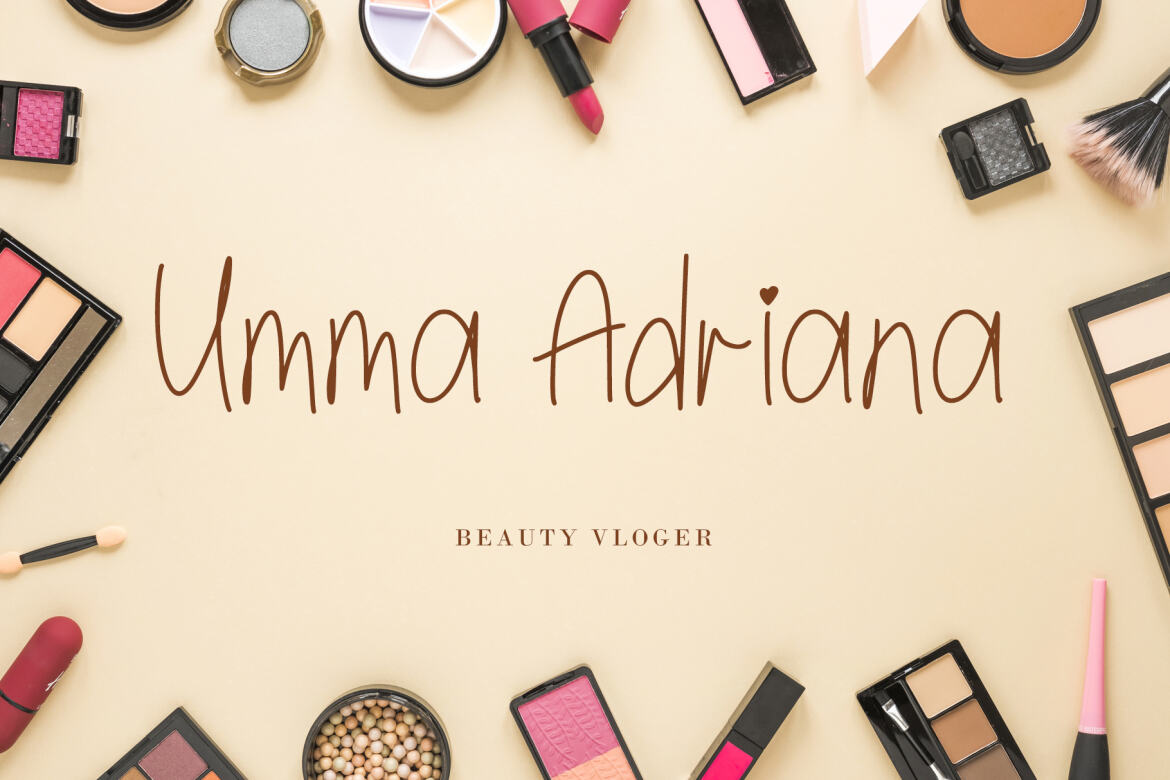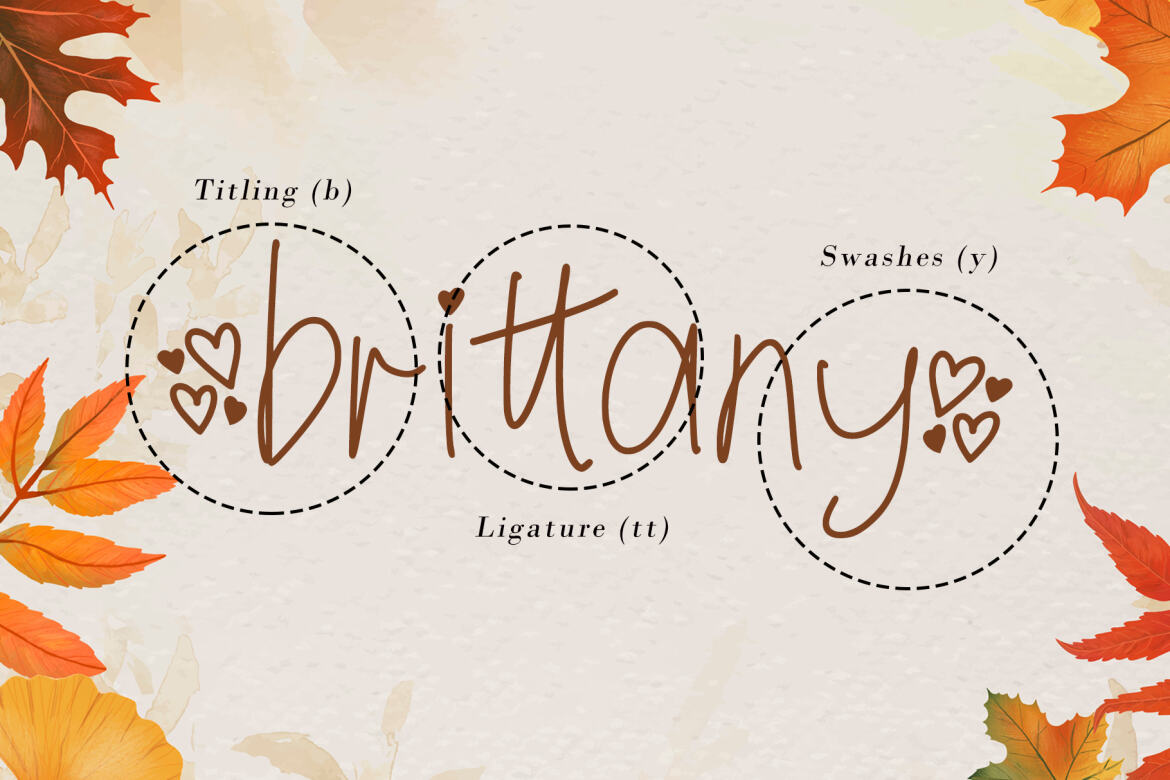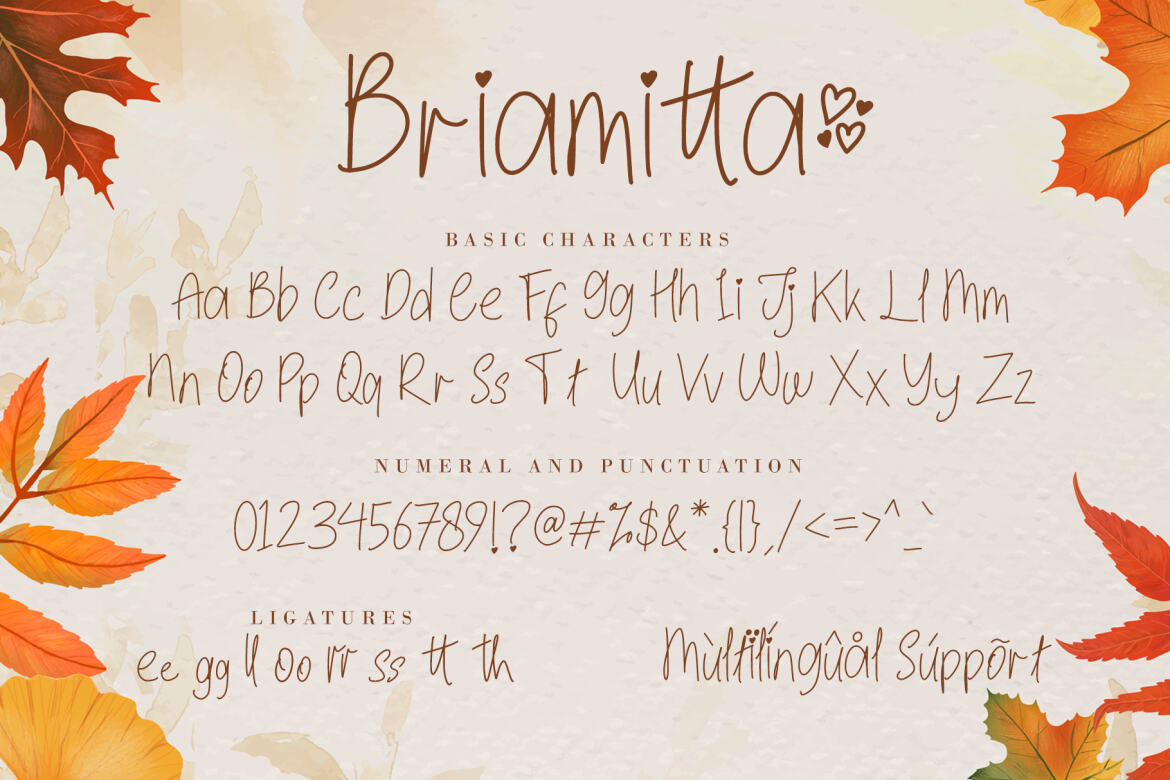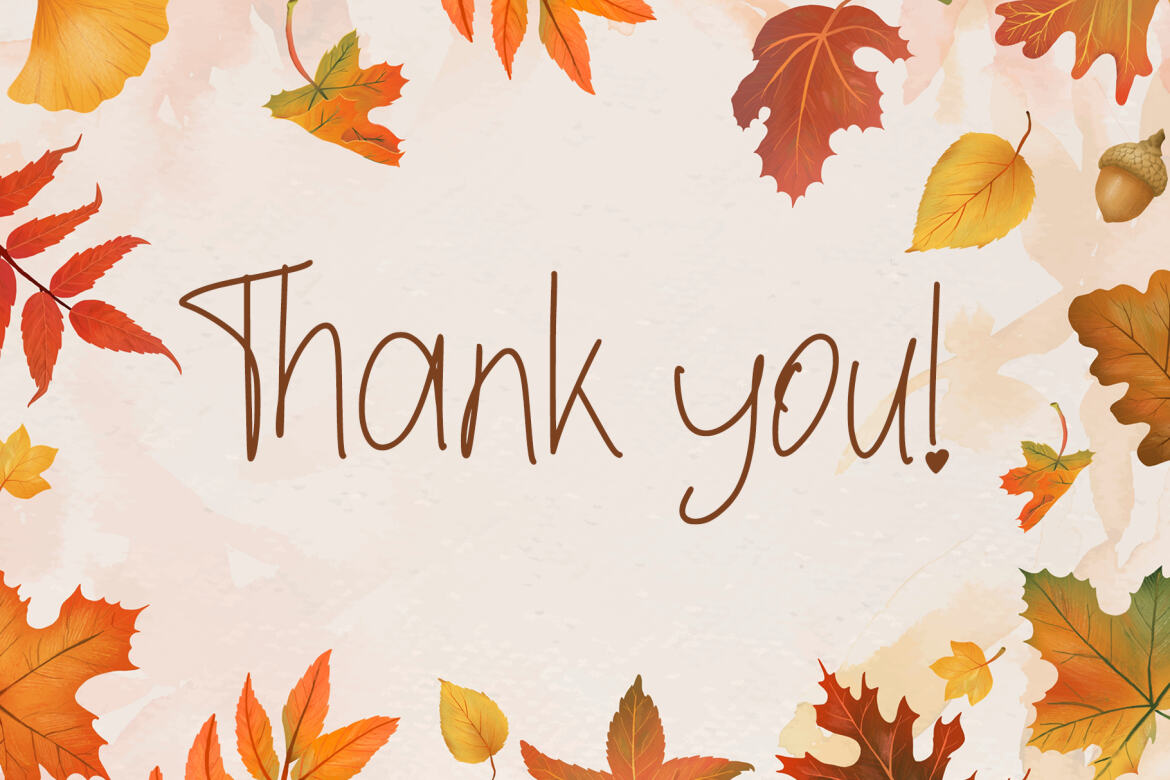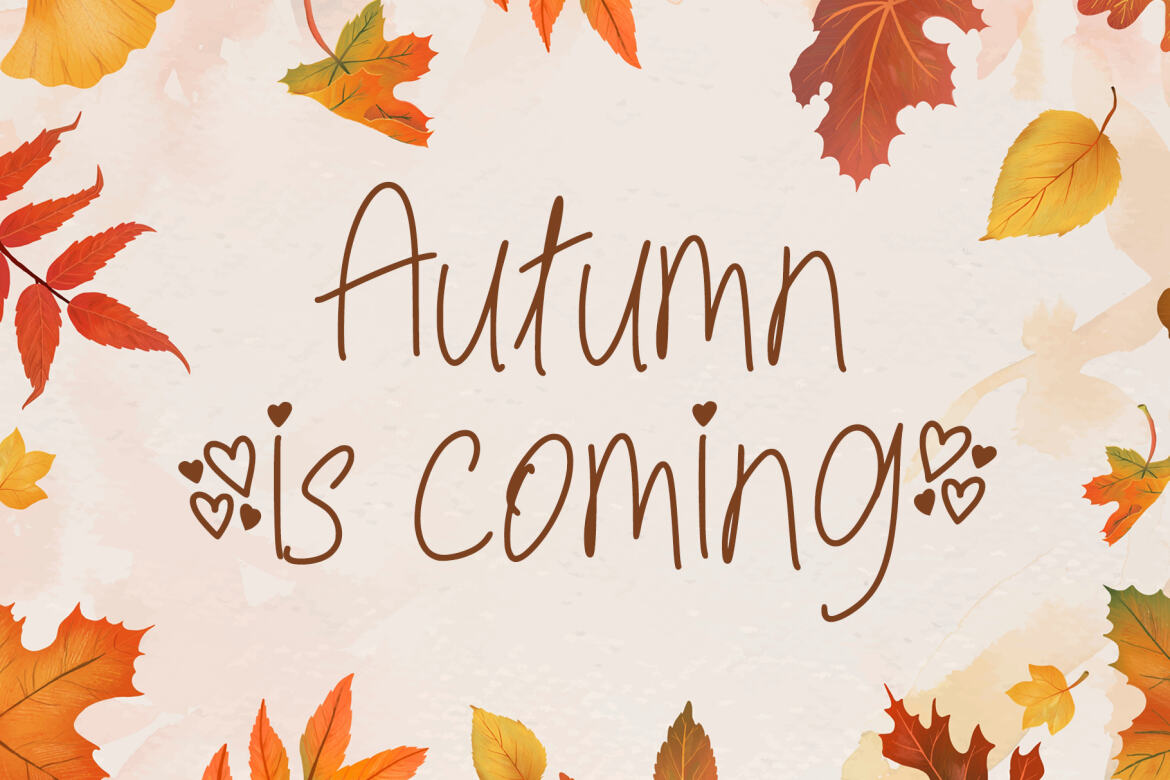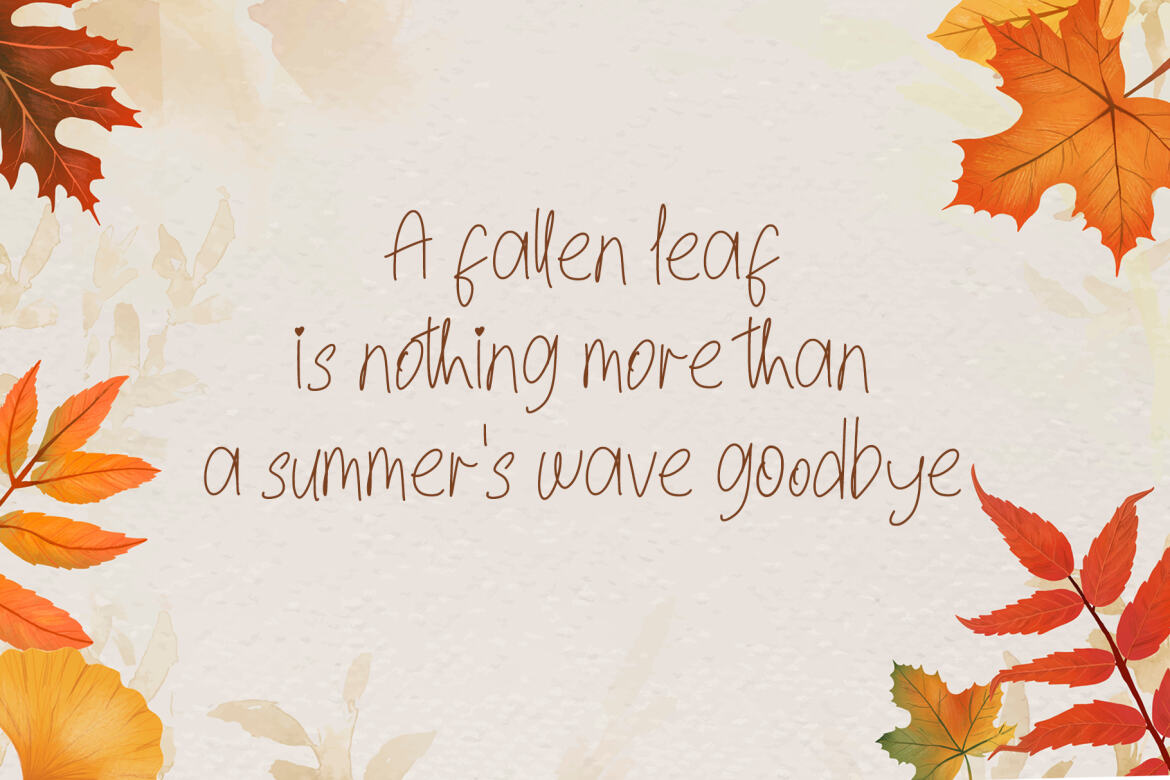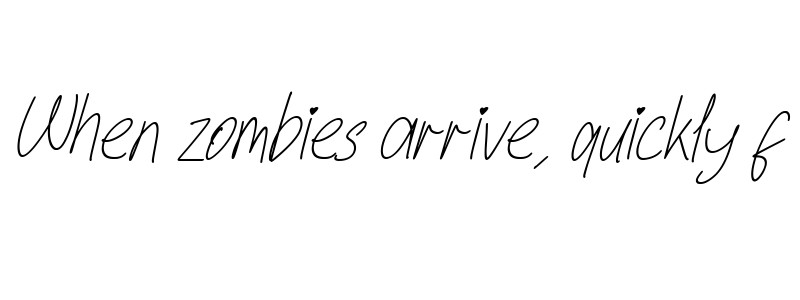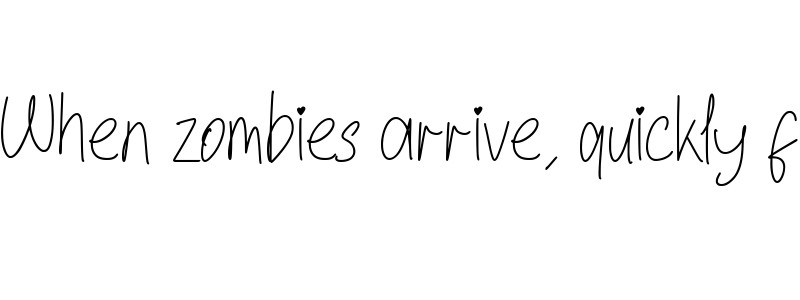
Briamitta FREE Monoline Font
Briamitta is a monoline handwritten font that is cute, bright, and fun. It is perfect for children-themed designs, especially when combined with bright and pastel colors. Add this beautiful display font to each of your creative ideas, and notice how it makes them stand out!
• ligatures, swashes & titiling
• support multilingual; ä ö ü ä ö ü ß ¿ ¡